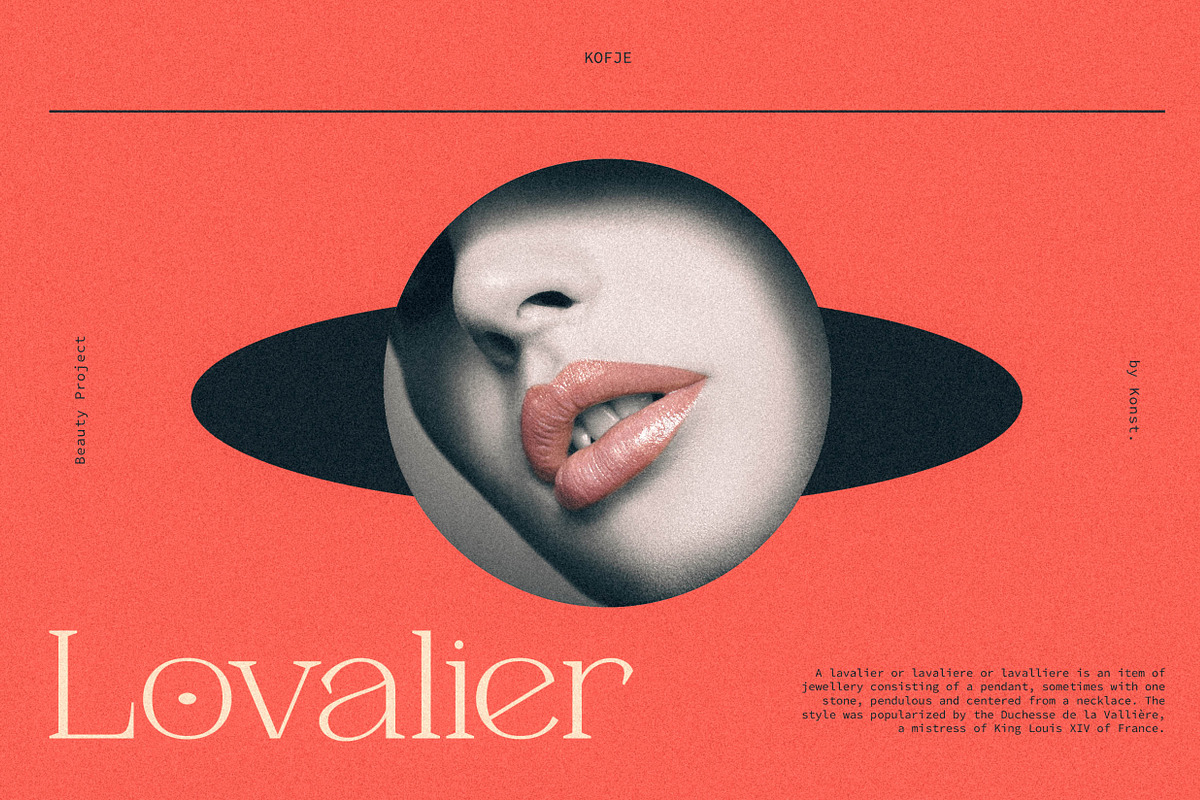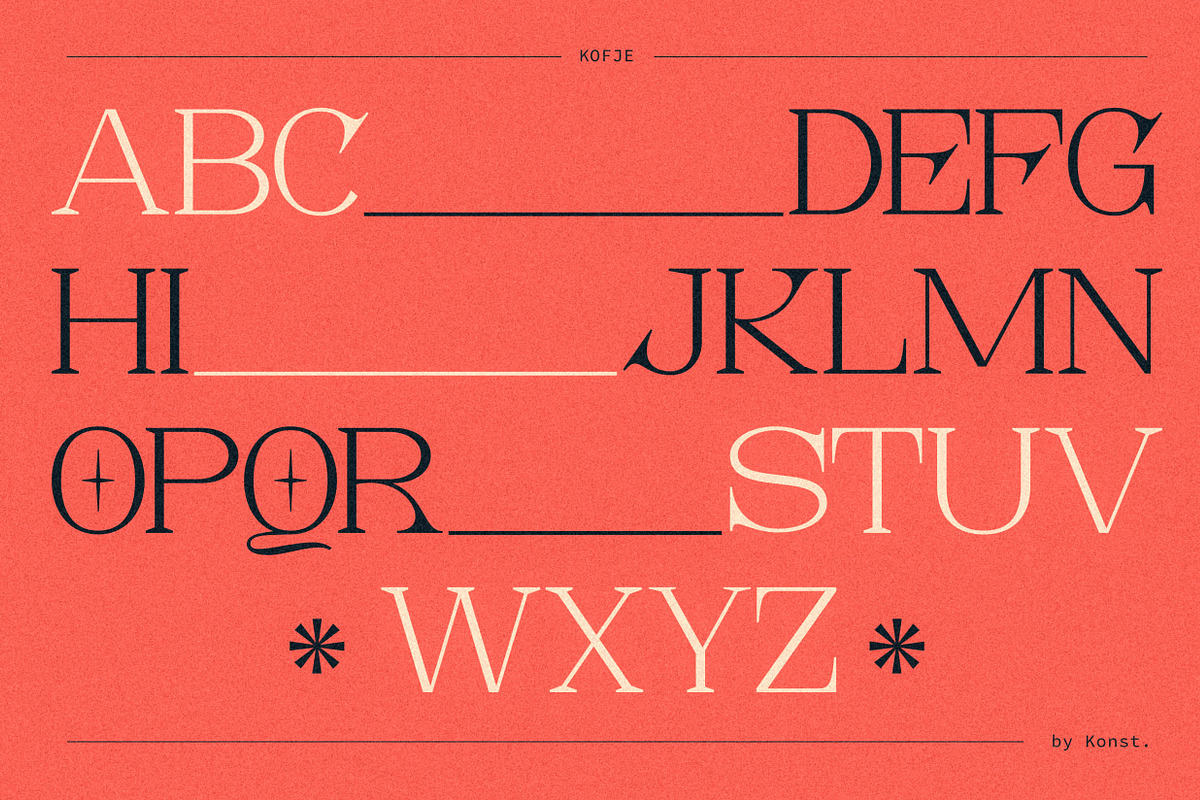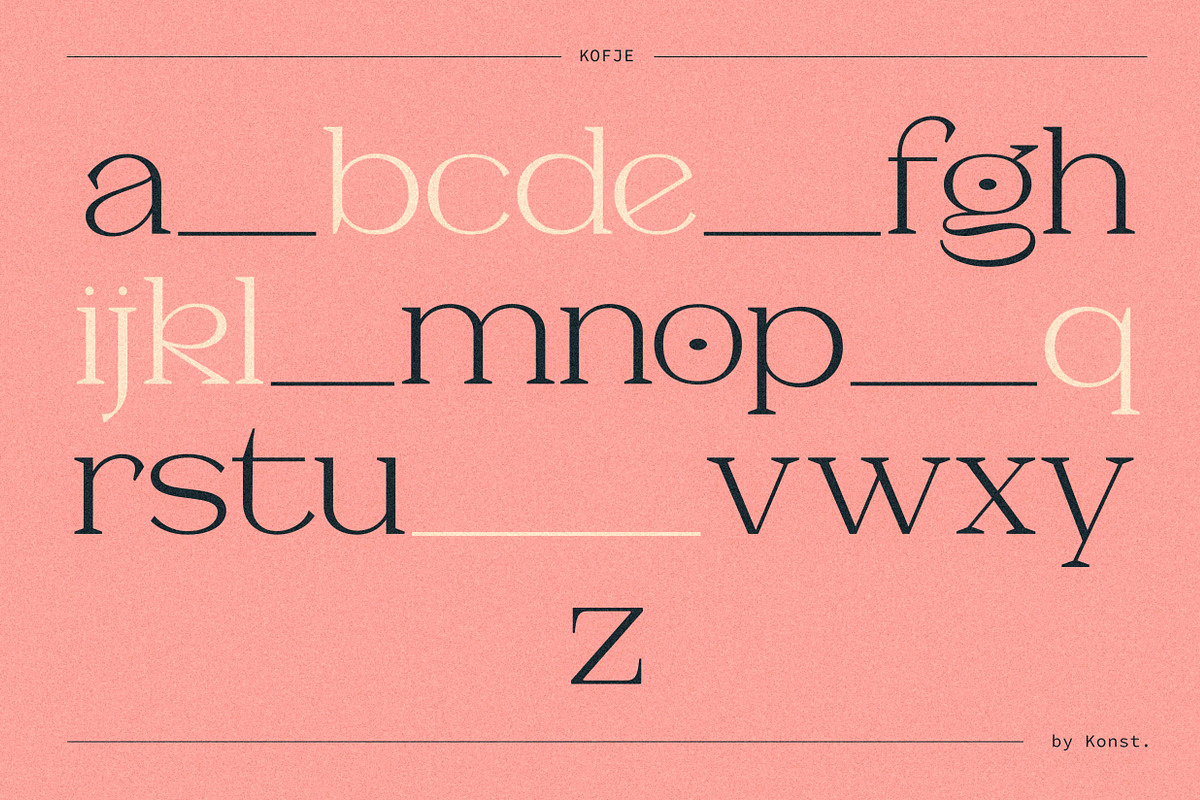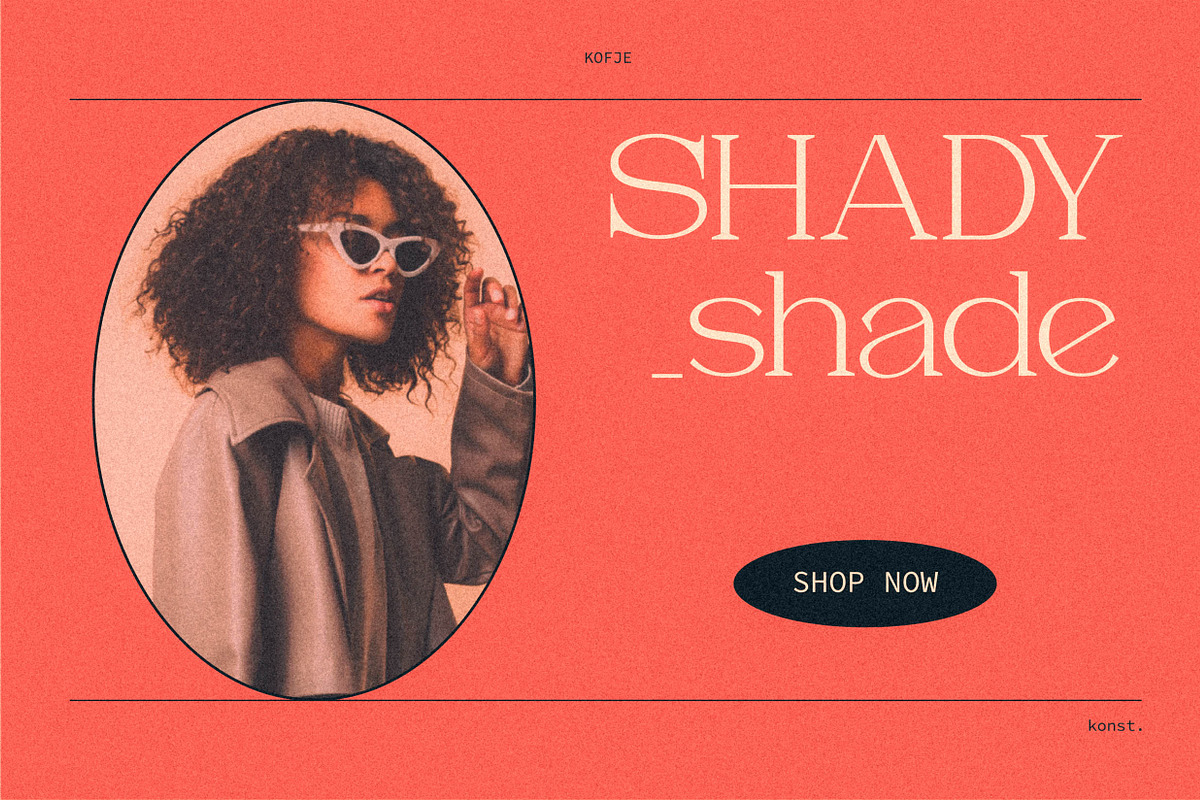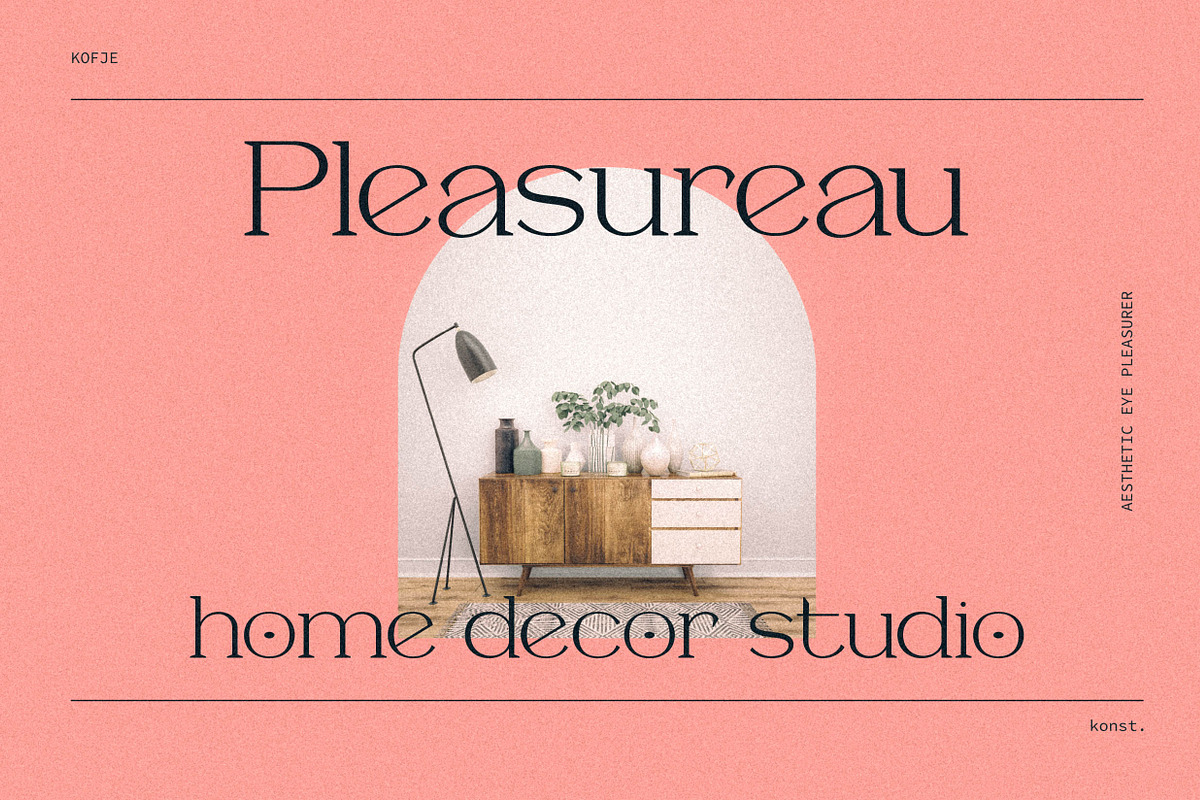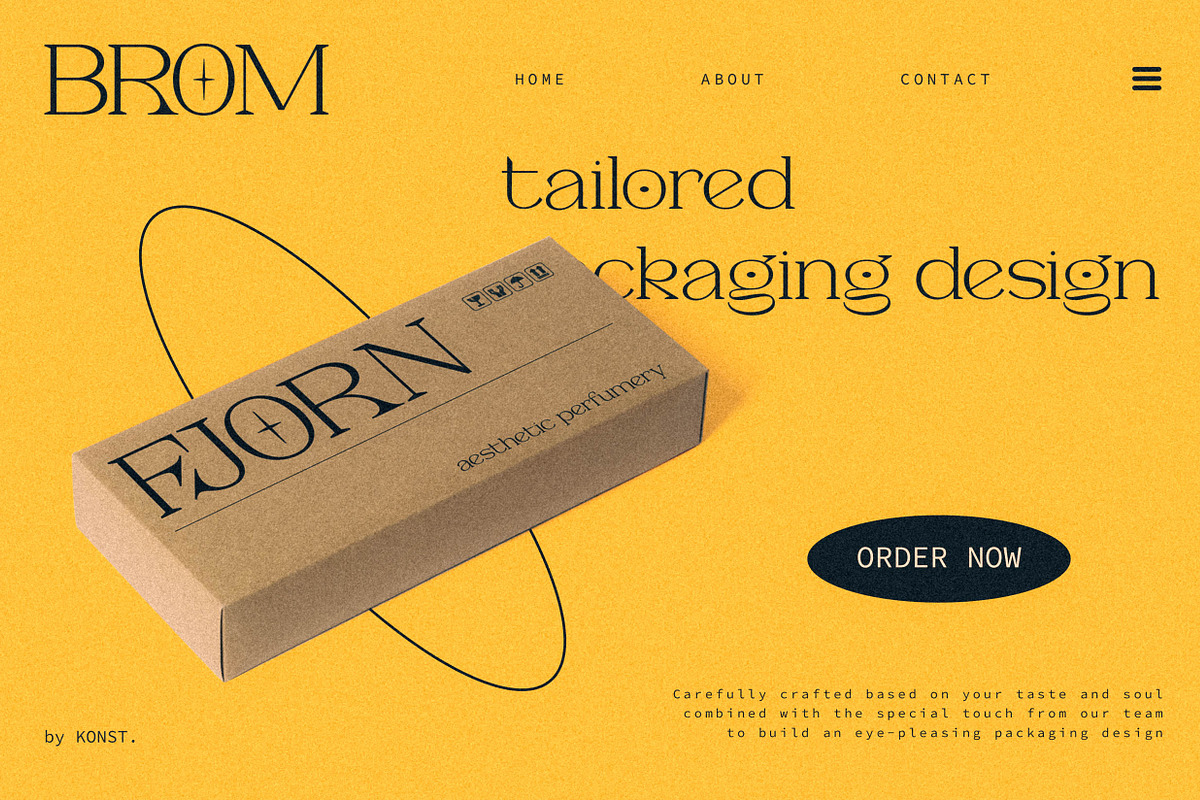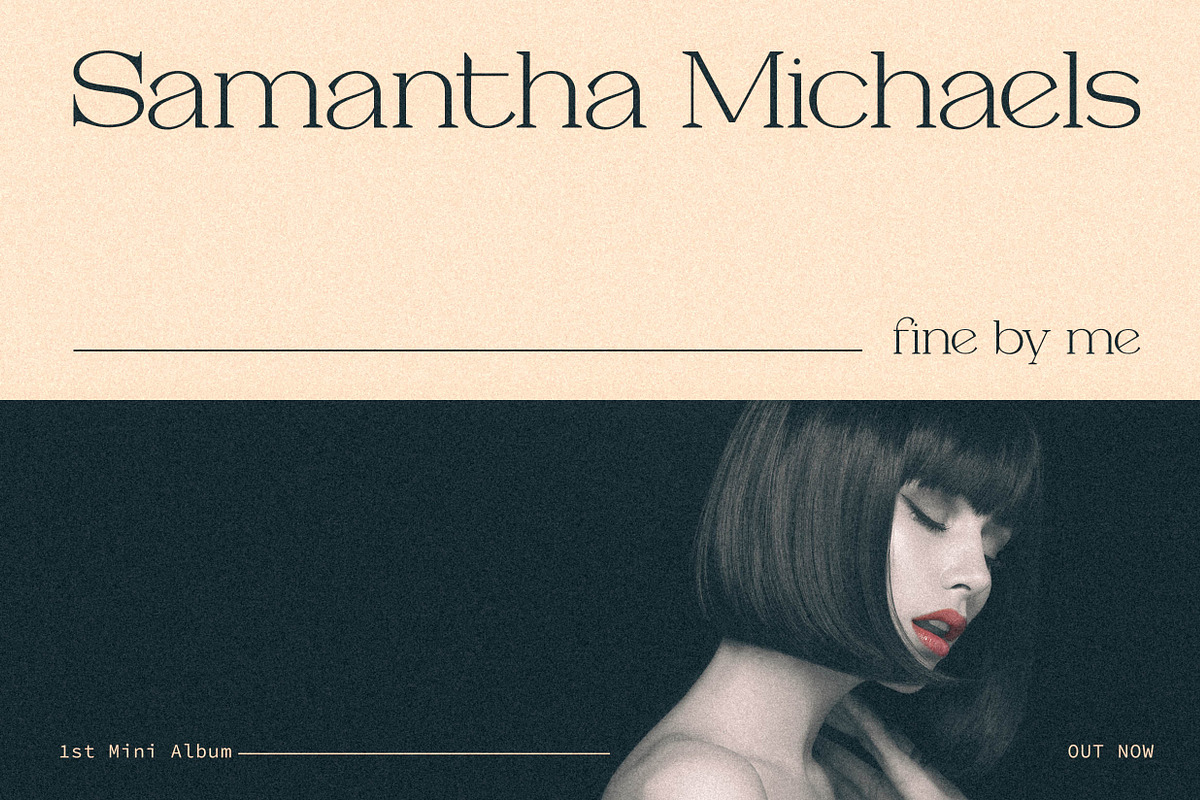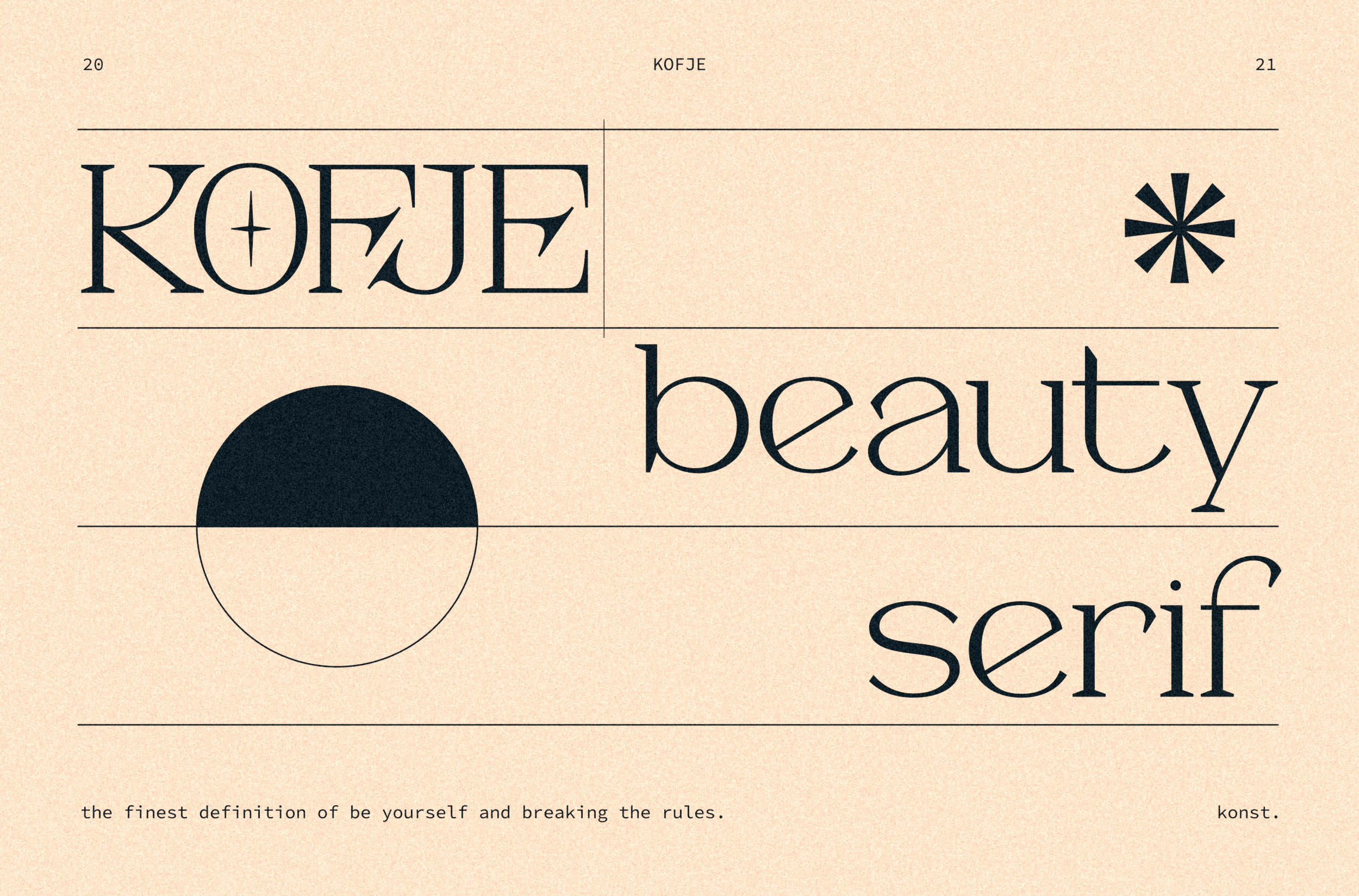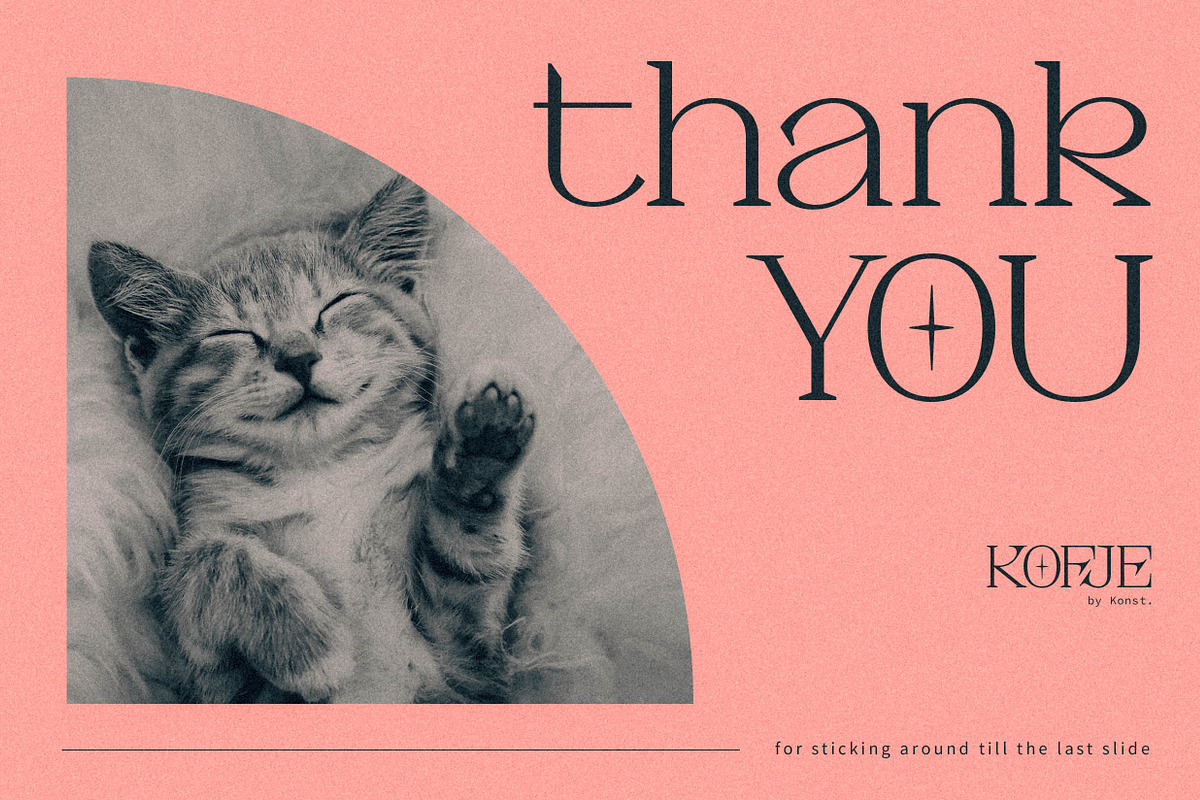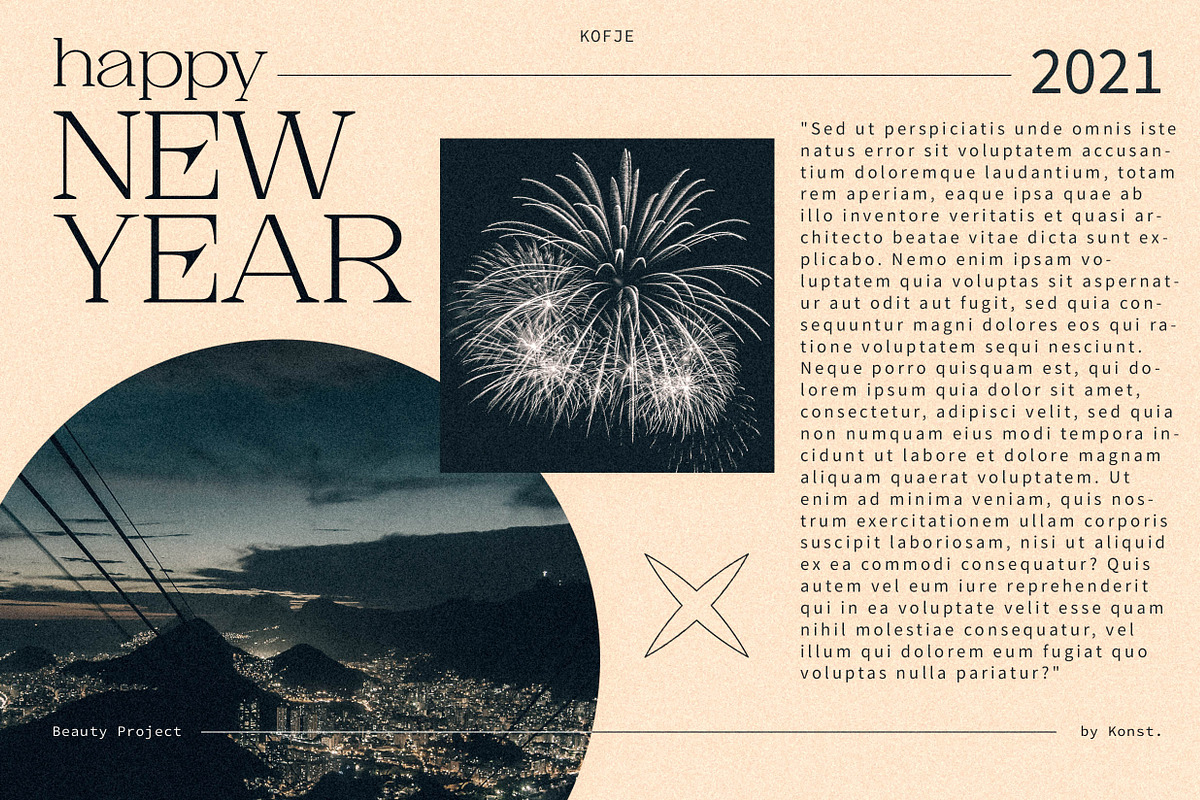
KOFJE - Beauty Serif Fonts
At this beginning of 2021, some of the predictions and data has released about the design trends this year. And it looks like the minimalism bandwagon is still around for a longer time.
And that's why we came up prepared. Pack up and get yourself ready with KOFJE. An elegant beauty serif fonts. Inspired by the minimalism design and visual concept. She will be a perfect makeup for your lookbook, social media branding and content, logo, beauty blog, fashion branding, website, clothing, merchandise, mood board concept, etc.
Language Support: Albanian, Basque, Catalan, Cornish, Croatian, Czech, Danish, Dutch, English, Esperanto, Estonian, Faroese, Finnish Scots, French, Gaelic, Galician, German, Greek Transliterated, Hawaiian, Hungarian, Icelandic, Indonesian, Irish, Italian, Latvian, Lithuanian, Maltese, Nynorsk Bokmal Norwegian, Polish, Portuguese, Romanian, Slovak, Slovenian, Spanish, Swedish, Turkish, Welsh. If you doubt with it please type it out in the text box below, I hope it will support your language too :)